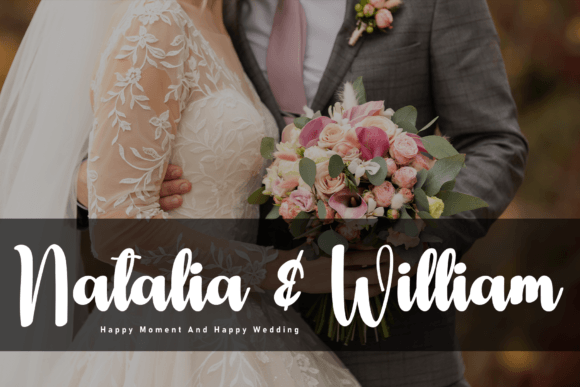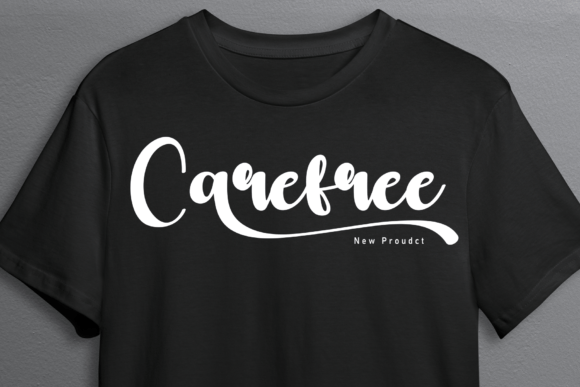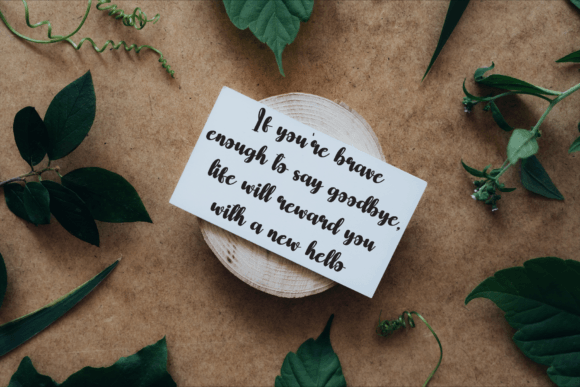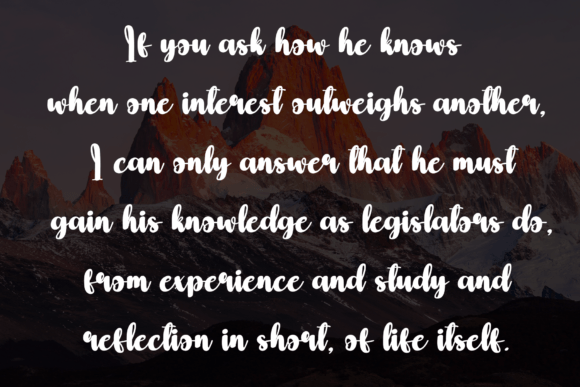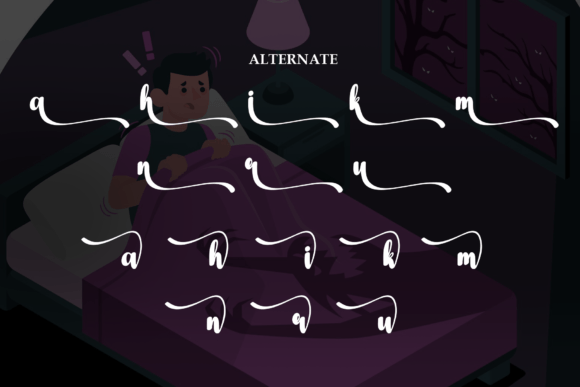
Baddream Font: Elevate Your Designs with Elegance and Sophistication
In the world of typography, a well-crafted font can make all the difference in transforming a design from ordinary to extraordinary. For designers and crafters seeking to add a touch of elegance and sophistication to their projects, the Baddream font is an exceptional choice. This beautiful script font boasts a delicate and classy look, making it perfect for a wide range of applications, from branding and advertising to packaging and digital media.
The Beauty of Baddream Font
Baddream is an elegant script font that features a very delicate and classy look. Not too thin and not too thick, balanced and varied, Baddream was designed to enhance the beauty of your projects. Its unique design strikes the perfect balance between refinement and legibility, making it an excellent choice for designers who want to create stunning visual content. Whether you’re working on a logo, brochure, or website, Baddream font is sure to impress.
Key Features of Baddream Font
- Elegant Script Design: Baddream font features a beautiful script design that exudes elegance and sophistication.
- Balanced and Varied: The font’s delicate and balanced design ensures that it’s not too thin or too thick, making it perfect for a wide range of applications.
- High Legibility: Baddream font is designed to be highly legible, making it easy to read and understand.
- Versatile: This font is perfect for a variety of design projects, including branding, advertising, packaging, and digital media.
Why Choose Baddream Font?
With so many fonts available, why choose Baddream font for your design projects? Here are just a few reasons why Baddream stands out from the crowd:
- Unique Design: Baddream font features a unique and distinctive design that will set your projects apart from the competition.
- Time-Saving: With Baddream font, you can create stunning visual content quickly and easily, saving you time and effort.
- Professional-Grade: This font is designed to professional-grade standards, ensuring that your projects look polished and sophisticated.
Using Baddream Font in Your Design Projects
So, how can you use Baddream font in your design projects? Here are a few ideas to get you started:
- Branding and Logo Design: Use Baddream font to create a stunning logo that reflects your brand’s personality and values.
- Advertising and Marketing: This font is perfect for creating eye-catching adverts and marketing materials that grab attention.
- Packaging Design: Add a touch of elegance to your packaging designs with Baddream font.
- Digital Media: Use Baddream font to create stunning digital content, including social media graphics, blog posts, and website headers.
In conclusion, Baddream font is an exceptional choice for designers and crafters seeking to add a touch of elegance and sophistication to their projects. With its unique design, balanced and varied look, and high legibility, Baddream font is perfect for a wide range of applications. Whether you’re working on a branding project, advertising campaign, or packaging design, Baddream font is sure to impress. So why not give it a try and see the difference it can make in your design projects?